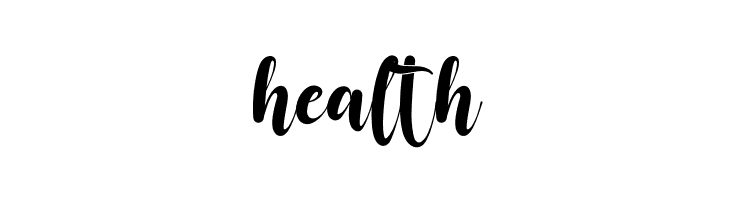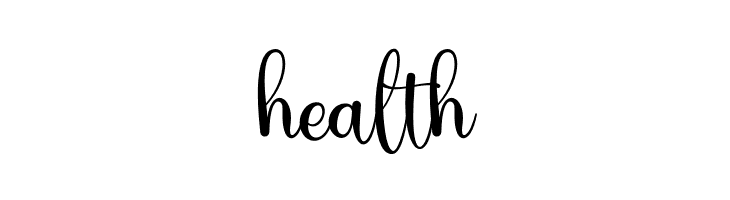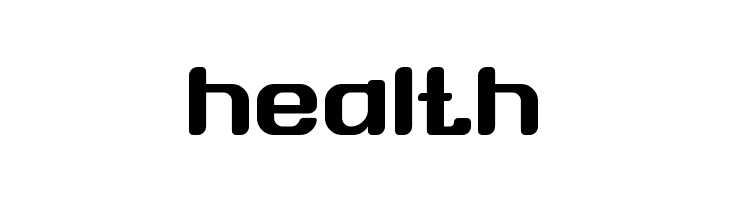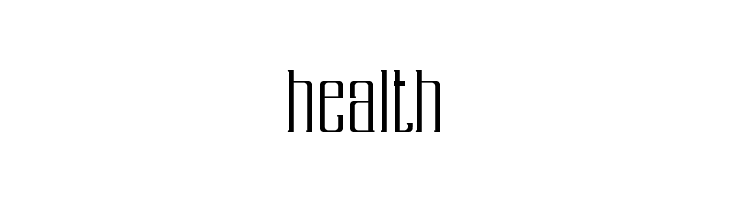
A playful and elegant handwritten script font with flowing strokes.
A playful and elegant script font with a handwritten style and decorative flourishes.
A playful and bold font with a whimsical flair and moderate contrast.
A rustic, textured font with a handcrafted, vintage appearance.
An elegant, flowing script font with ornate uppercase and smooth lowercase letters.
A playful and elegant script font with flowing, cursive letterforms.
A bold, decorative font with a vintage style and high contrast strokes.
A modern, geometric font with sleek lines and a sophisticated appearance.
A bold, modern font with rounded edges and geometric structure.
A modern, sleek font with tall, narrow characters and a refined, elegant style.